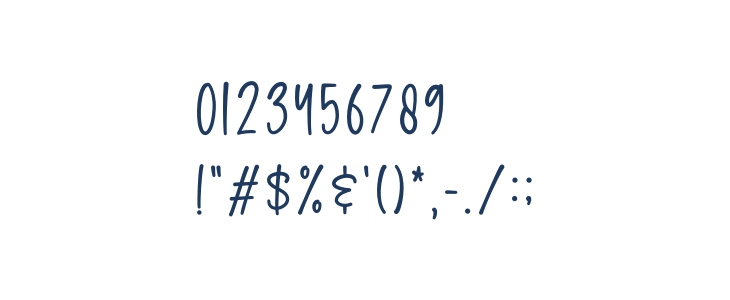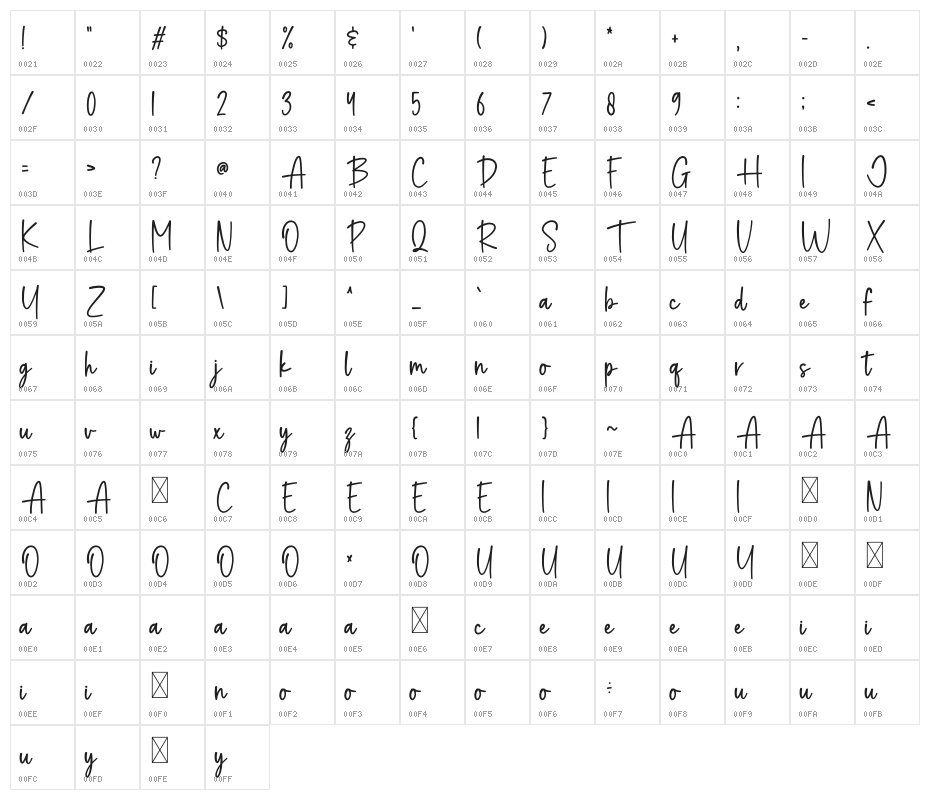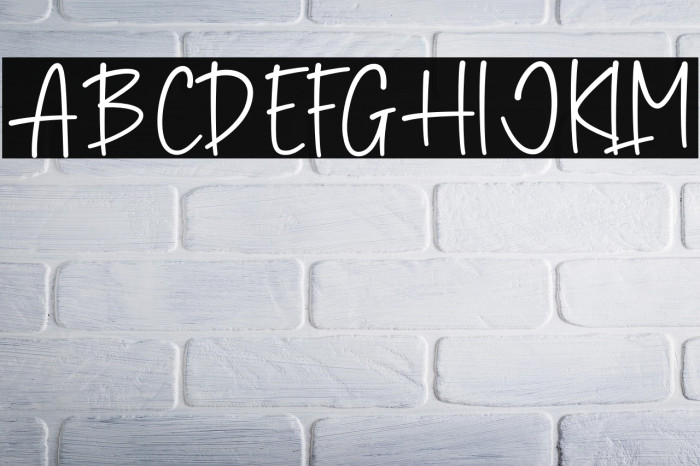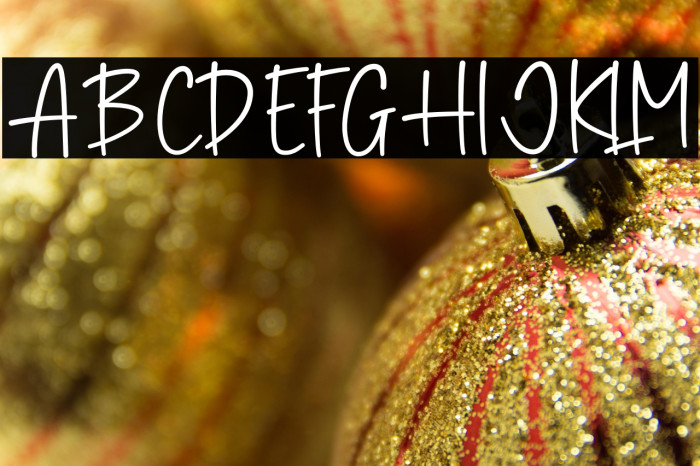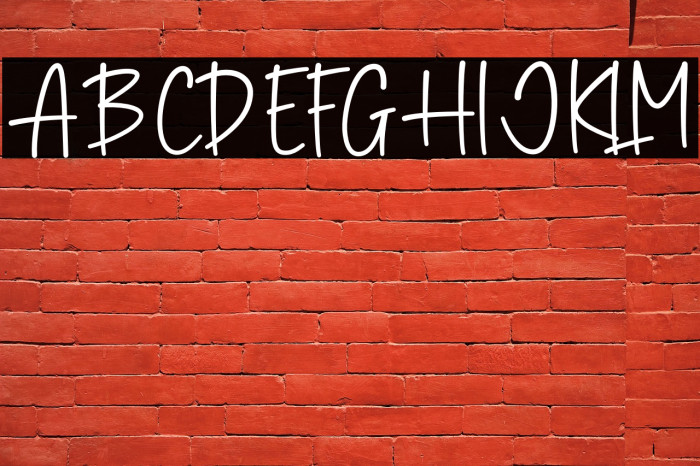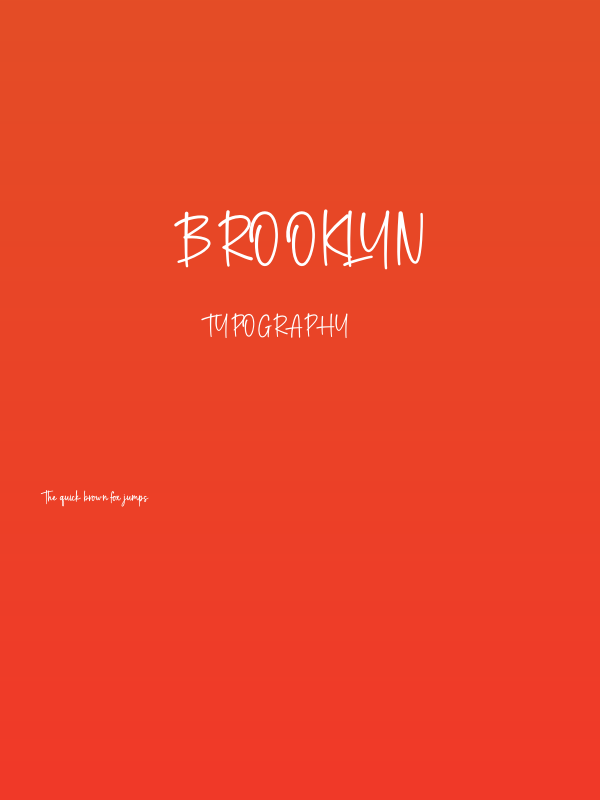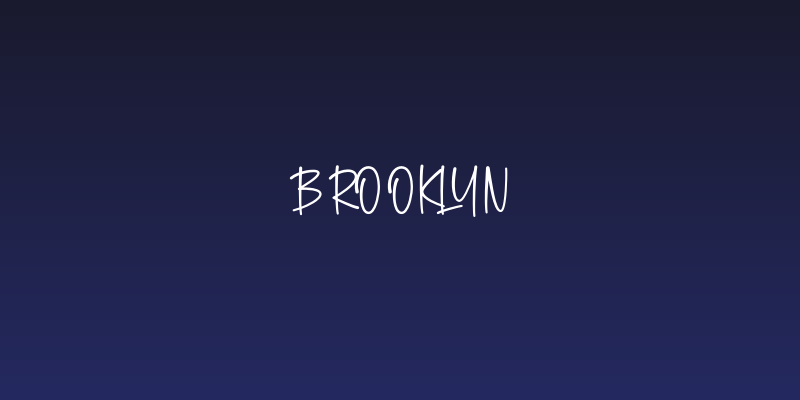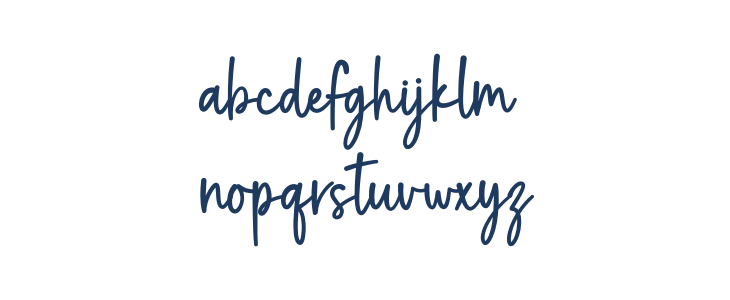
Brooklyn Font
Brooklyn Description
This font features a playful and casual handwritten style, characterized by its loose and flowing strokes. The uppercase letters are tall and narrow, with a slightly uneven baseline that adds to its informal charm. The lowercase letters maintain a consistent style, with rounded edges and a smooth, cursive flow. Numbers are clear and legible, matching the overall aesthetic. Special characters are creatively integrated, maintaining the font's whimsical nature. This font exudes a friendly and approachable vibe, making it suitable for a variety of creative projects.
Overall StyleCasual, Playful
Use CaseHeadlines, Logos, Invitations
Proposed ProjectsIdeal for greeting cards, invitations, personal branding, and social media graphics.